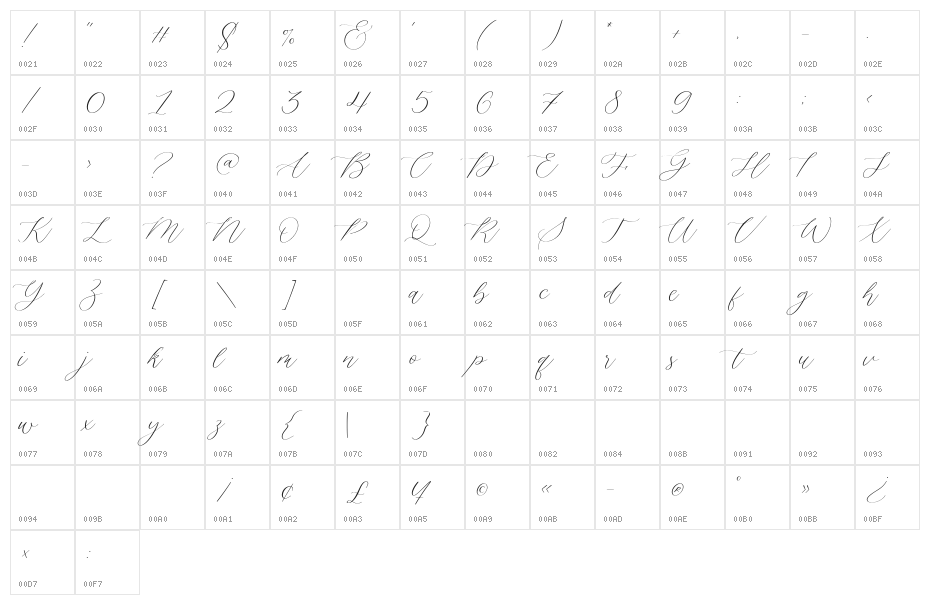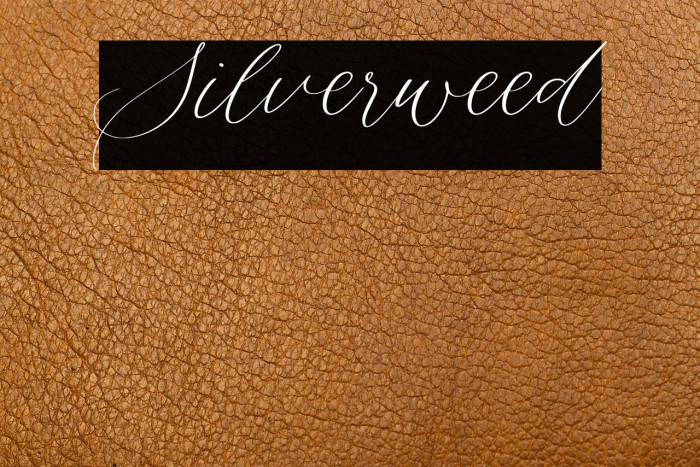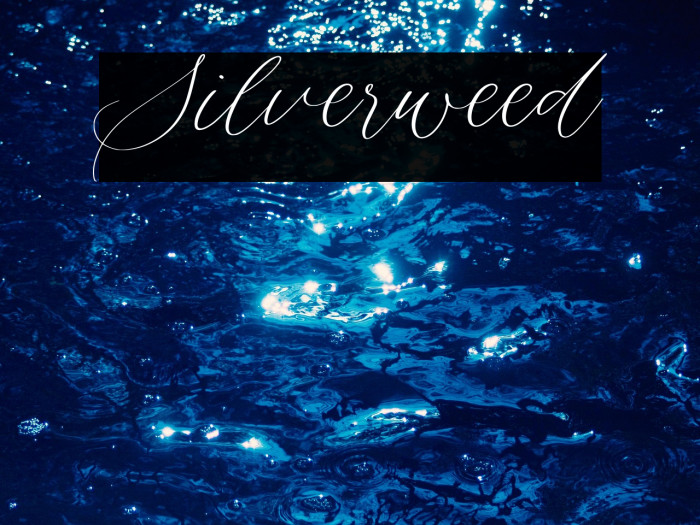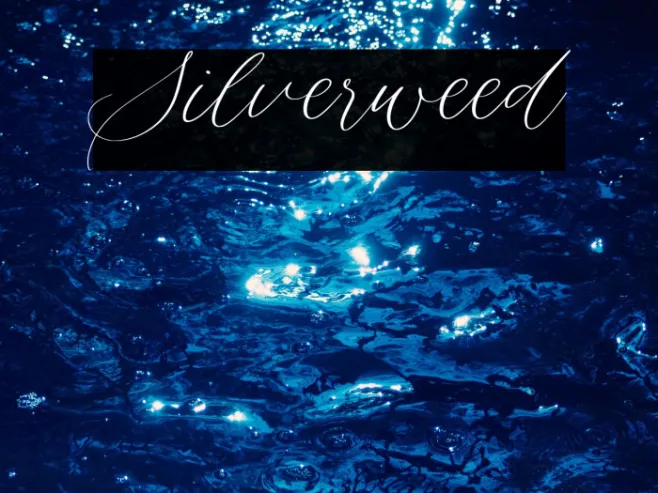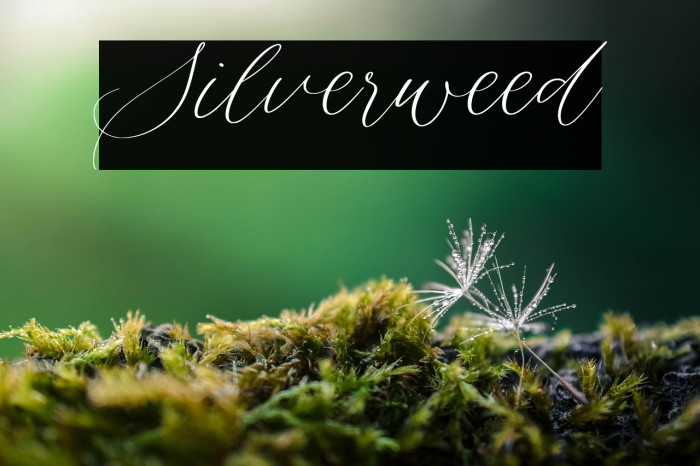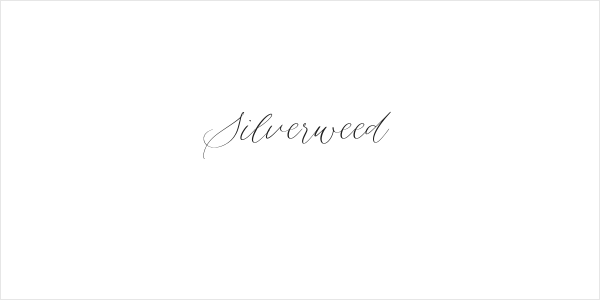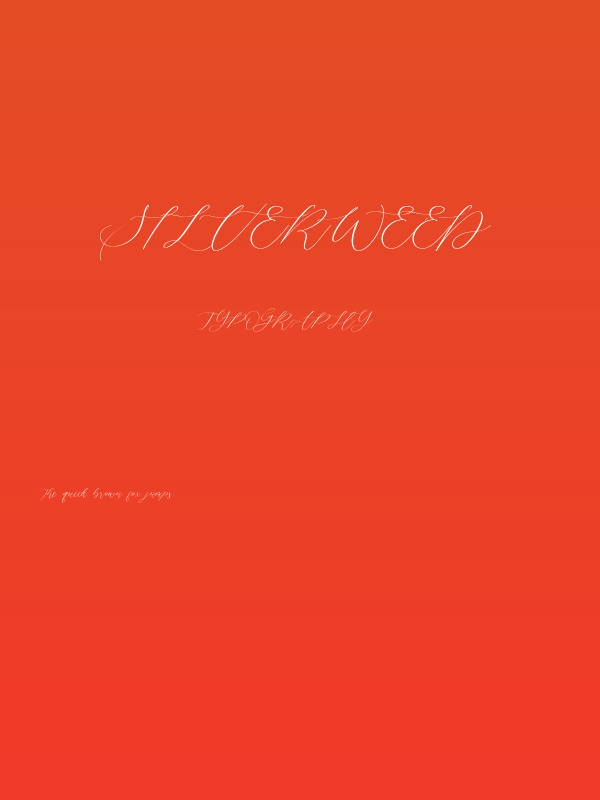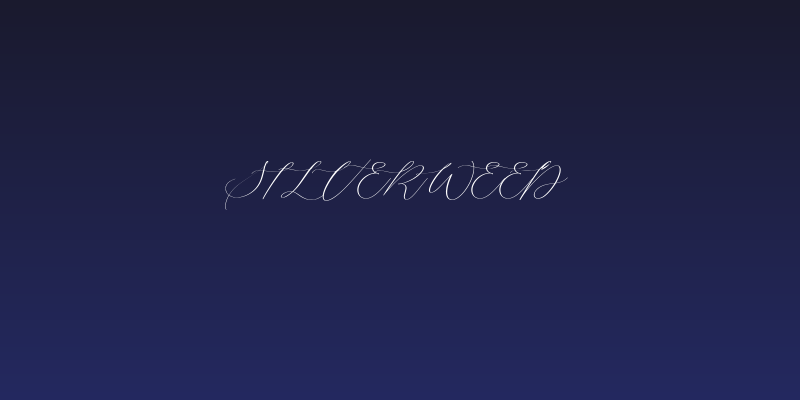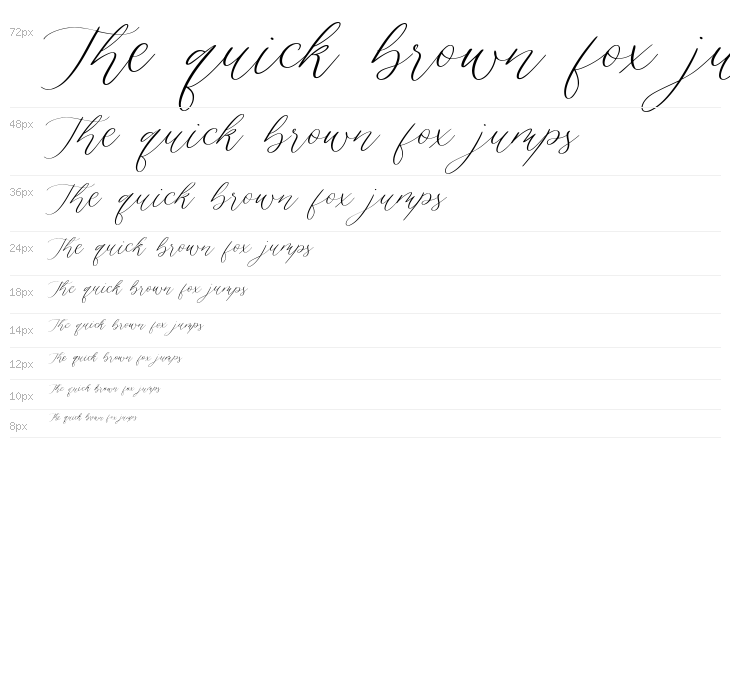
Silverweed Font
Silverweed Description
This elegant script font features a flowing, cursive style with delicate, thin strokes and graceful curves. The uppercase letters are characterized by sweeping flourishes, while the lowercase letters maintain a consistent, fluid motion. The numerals are equally stylish, with a refined appearance that complements the overall aesthetic. Special characters are thoughtfully designed to match the font's sophisticated look. The font's airy and light structure gives it a sense of elegance and refinement, making it suitable for formal and decorative applications.